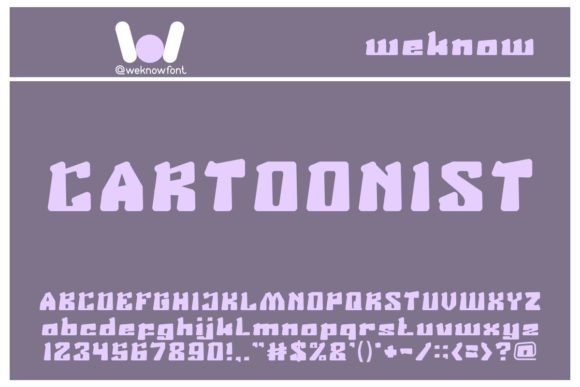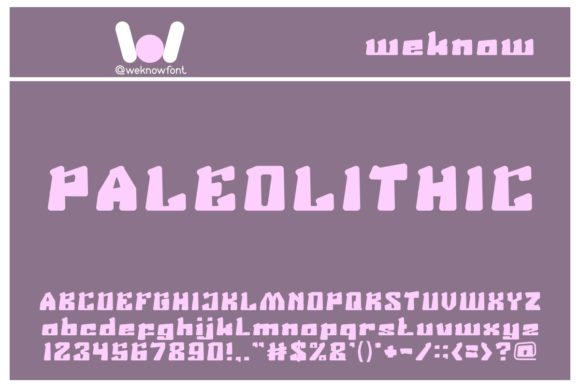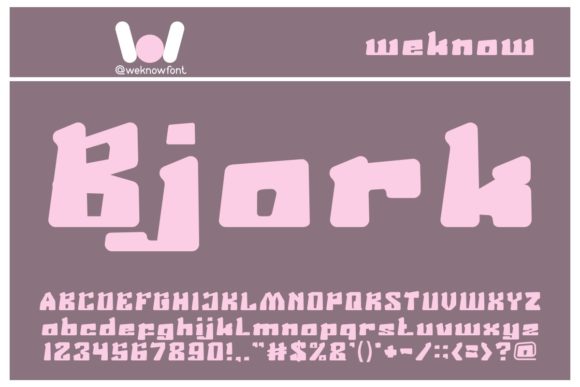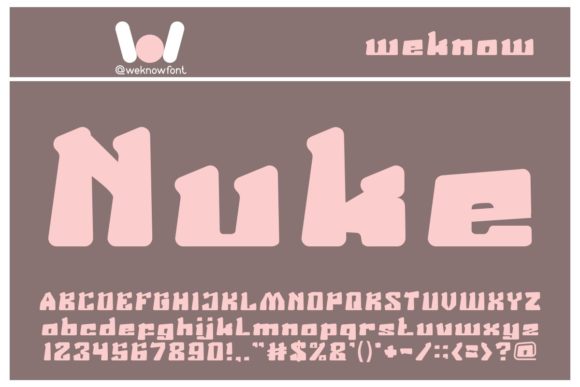
Introduction to Age of Science and Technology Font
Age of Science and Technology is a fancy and cool display font.
It is suitable for logos, headline font, in corporate identity, brand identity, apparel industry, poster, music, movie, game, magazine, book, comic, cartoon, YouTube, Instagram, website, or any of your creative design projects .